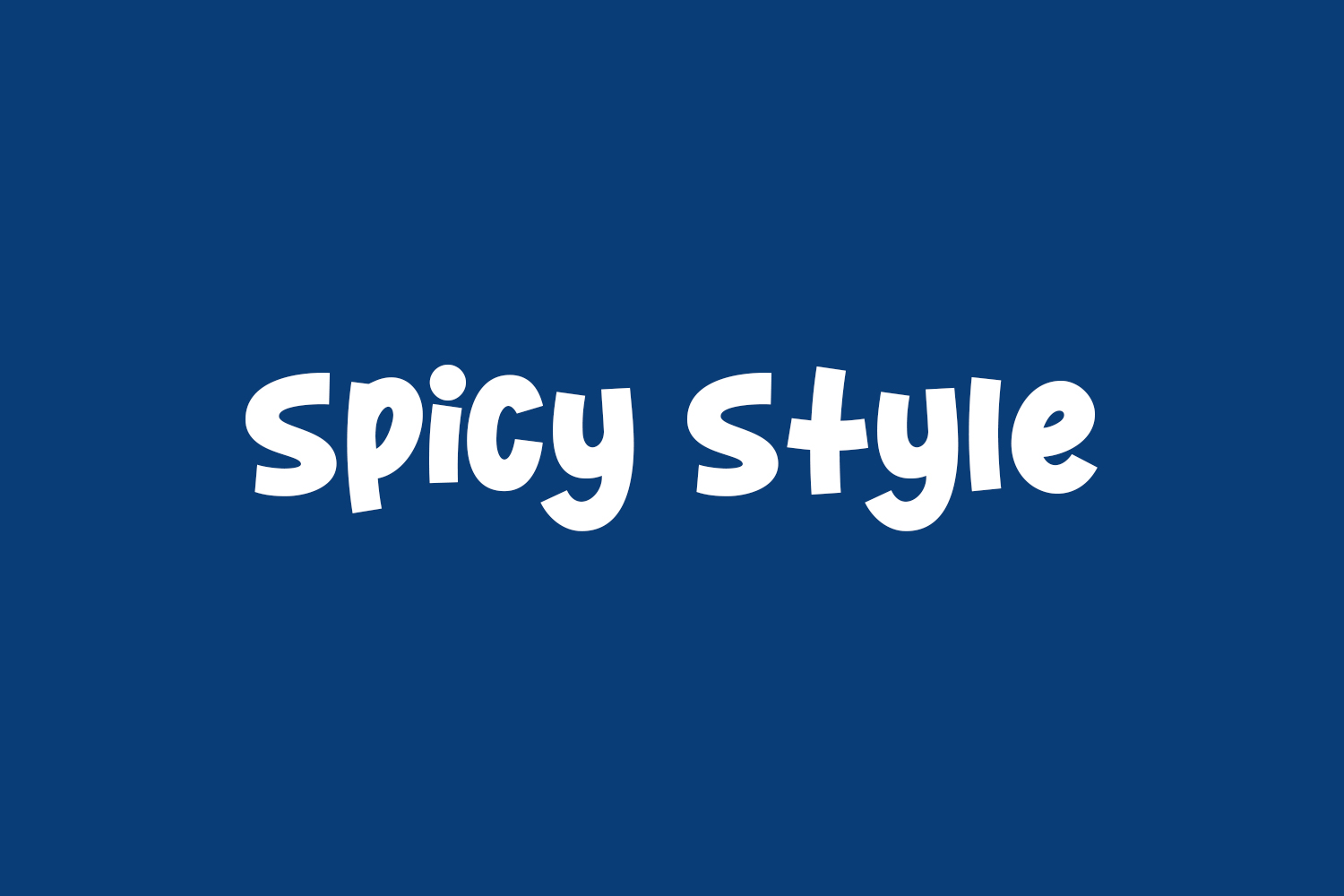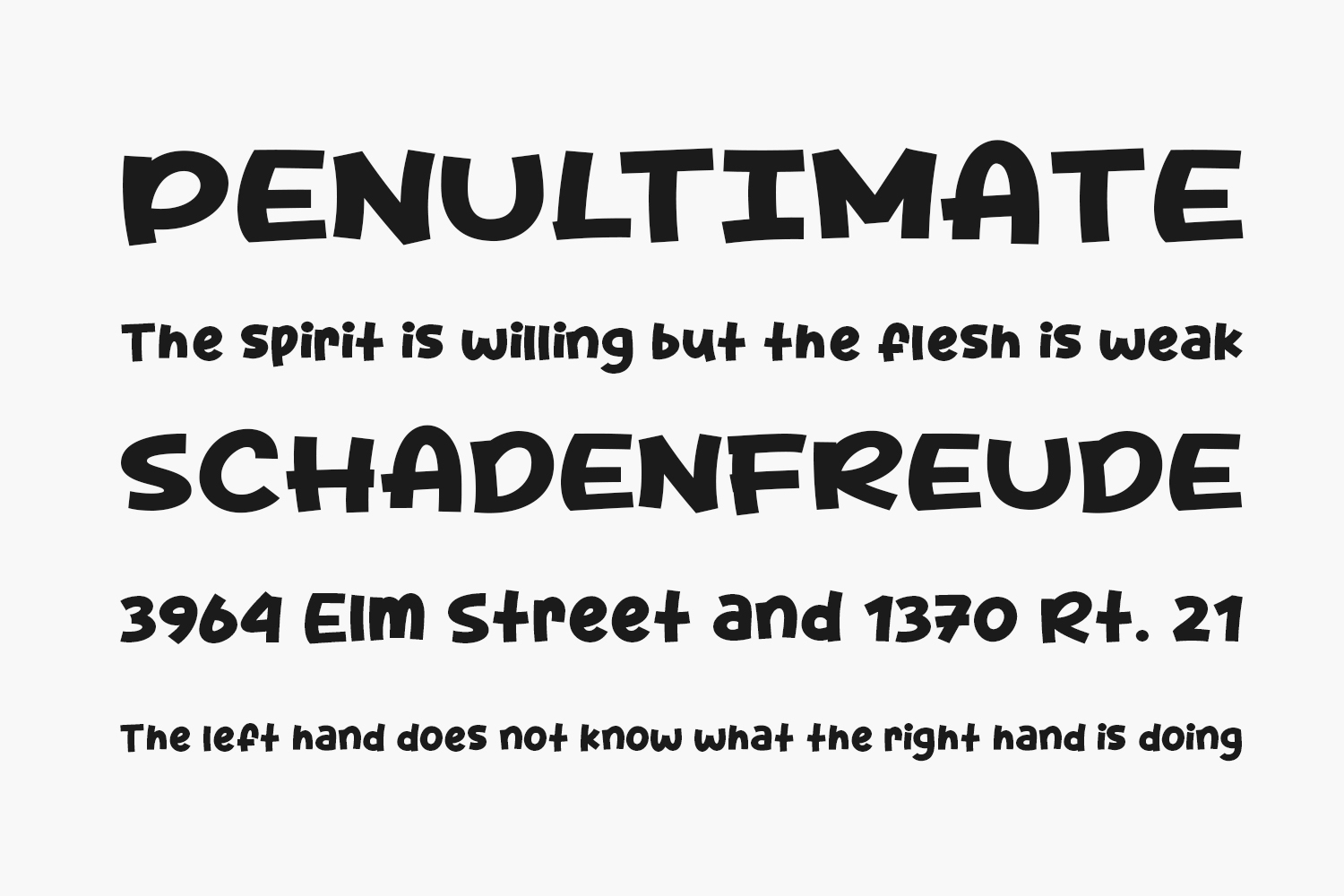
Introducing Spicy Style Free Font, an electrifying and daring display typeface that injects a fiery essence into your designs. This font sizzles with its captivating letterforms and edgy contours, commanding immediate attention and leaving a lasting visual impression. Ideal for captivating headlines, eye-catching posters, and memorable branding projects that crave a spicy twist, Spicy Style Font ignites a thrilling sensory experience and infuses your creative ventures with a burst of excitement. Spicy Style Free Font is free for personal use only. Please purchase the full version for commercial use.